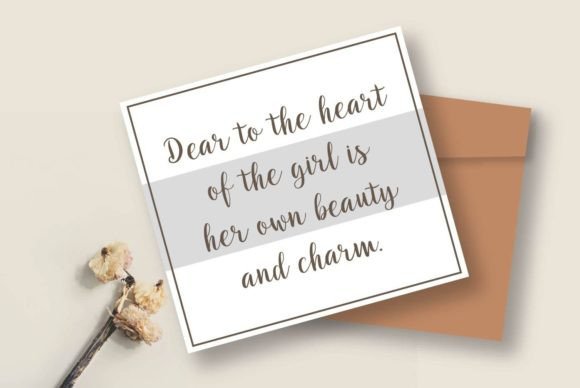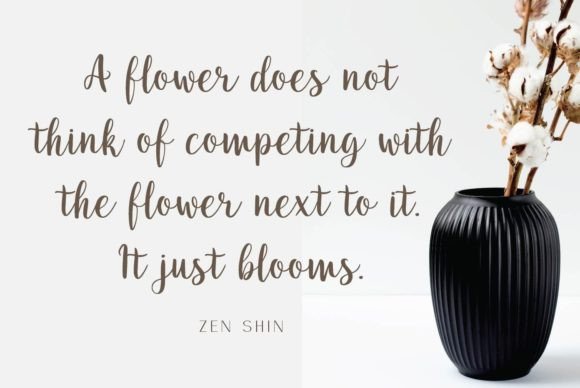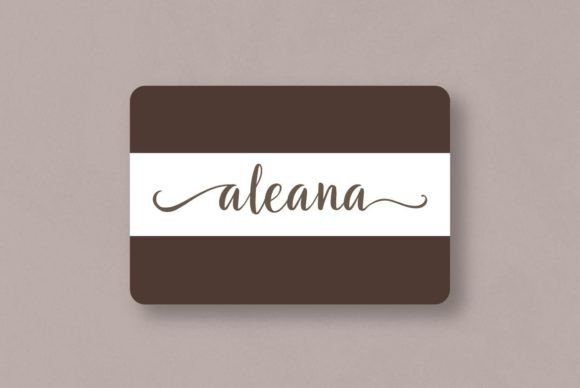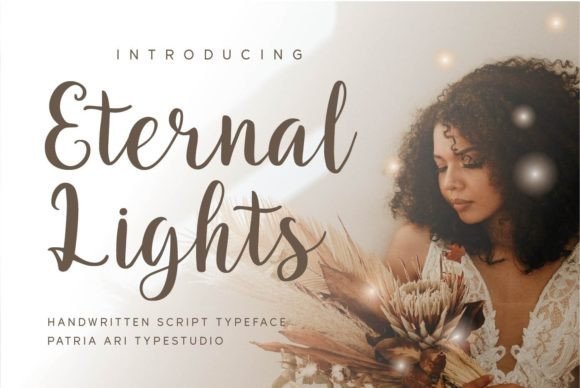
Introduction to Eternal Lights Font
Eternal Lights is a delicate and well-rounded handwritten font, perfect for crafty projects that need authentic typography.
Use it for wedding invitations, birthday cards, personal branding, elegant logos, and more, and your designs will stand out .
Key Features of Eternal Lights Font
Why Choose Eternal Lights Font?
Eternal Lights Font offers exceptional quality and versatility, making it a valuable addition to your design toolkit. Whether you’re creating for personal projects or commercial use, Eternal Lights Font delivers professional results.